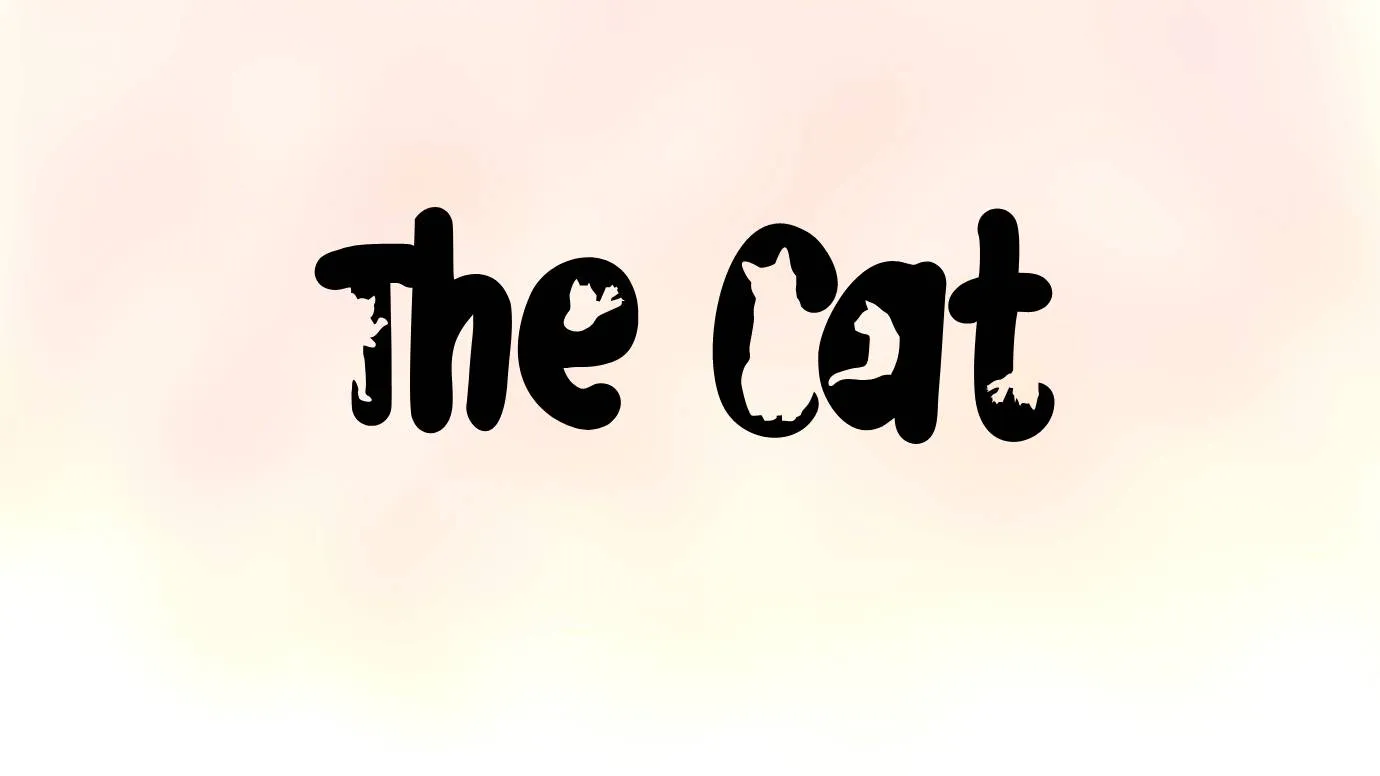
The Cat Font Family is a modern and decorative typeface that is famous as The Cat Font. This decorative character typeface lies in the category of the fancy family of fonts. The real manufacturer of this typeface was Vunira Design.
This is a PUA-encoded typeface which means that anyone can easily access all glyphs, symbols, and characters. Its similar Disneyland font has the same appearance.
| Name | The Cat Font |
| Type | Fancy |
| Designer | Vunira Design |